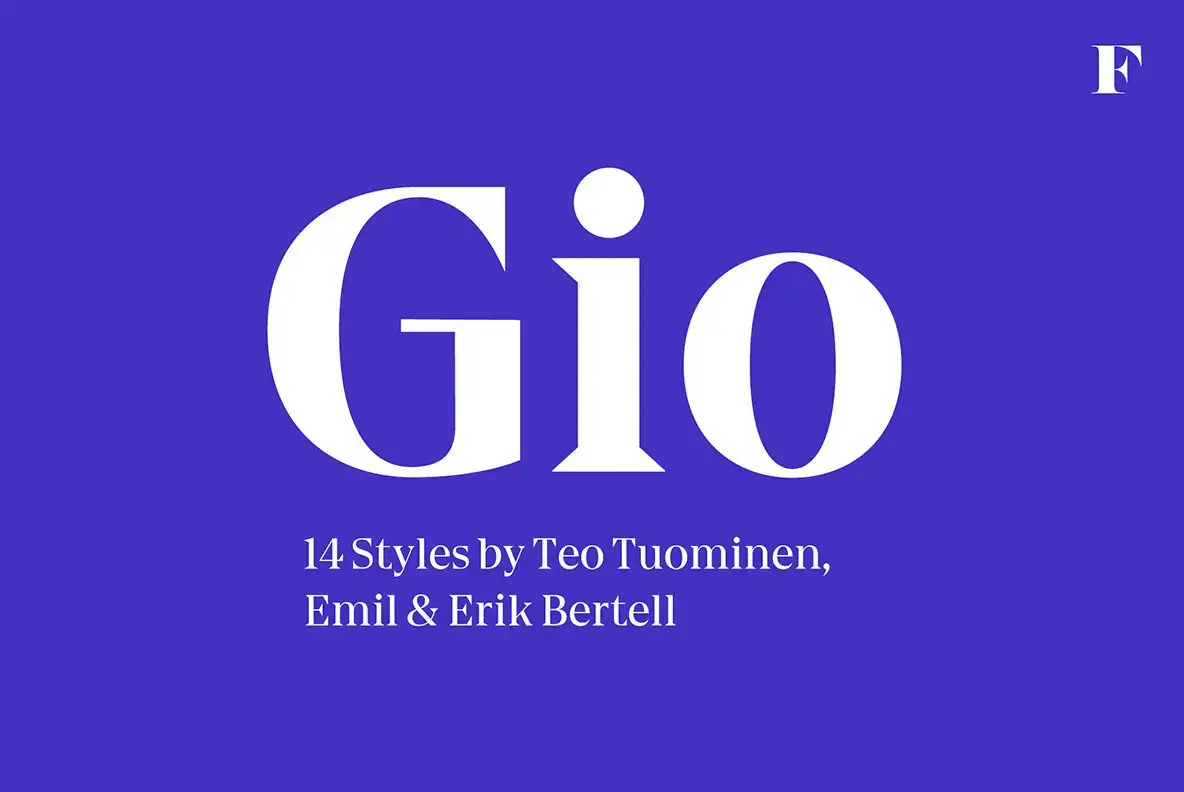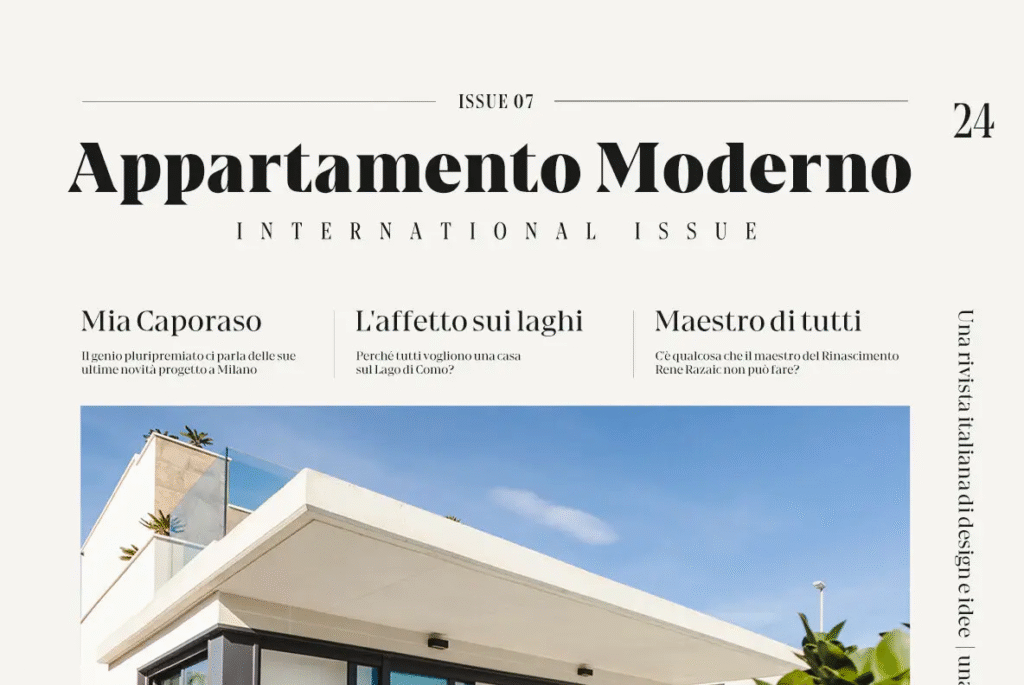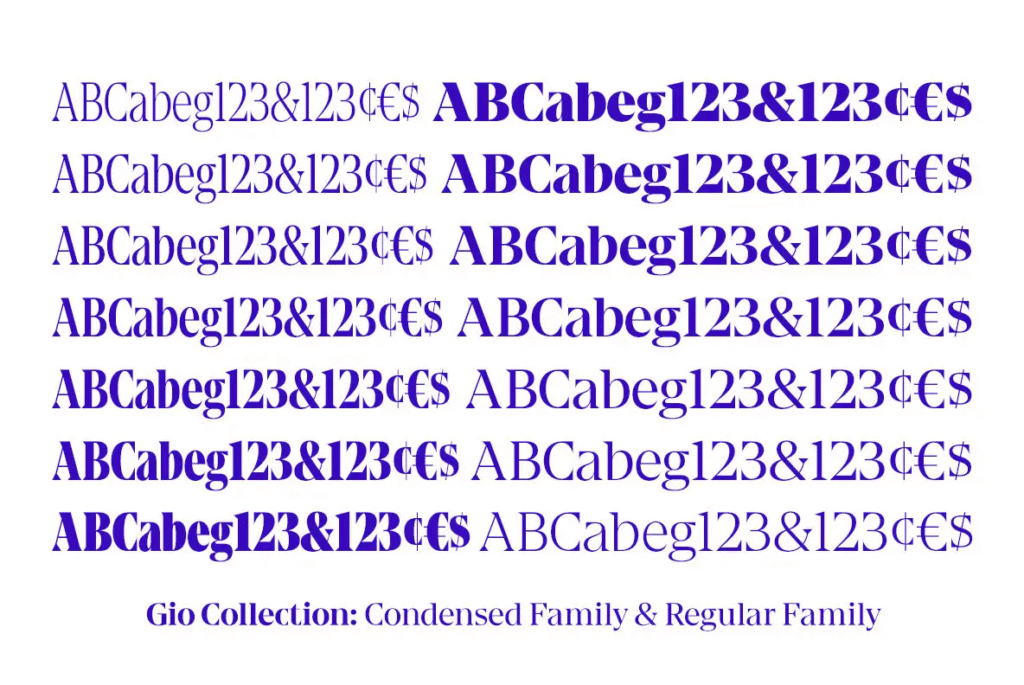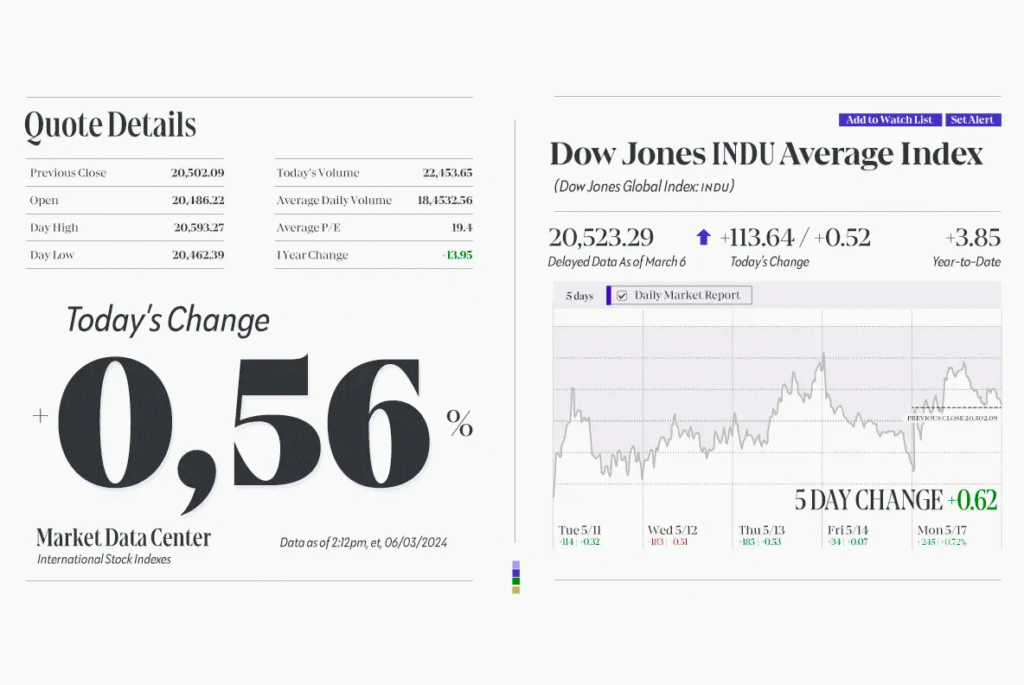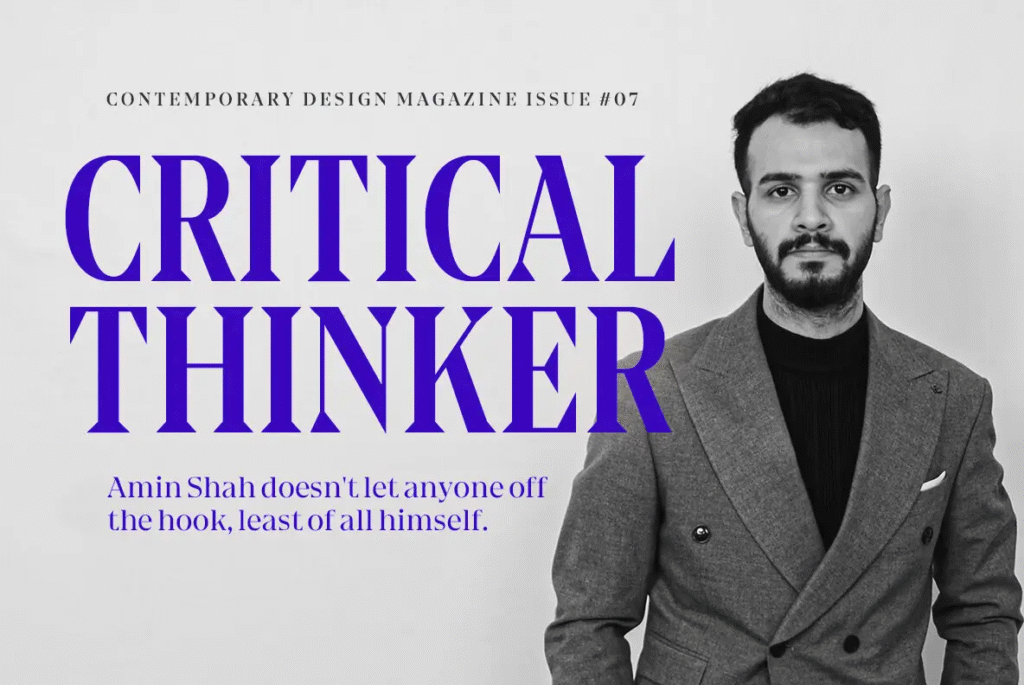
Gio Font
Gio wedge serif typeface with geometric design and modern elegance.
Gio serif font family sample with wedge serif details.
Modern editorial design using Gio typeface.
Branding mockup featuring Gio wedge serif font.
Elegant typography sample from Gio font family.
Headline design showcasing Gio serif typeface.
Logo concept created with Gio modern serif font.
Gio – Modern Wedge Serif Typeface
Designed by Fenotype, Gio is a wedge serif typeface with a strong geometric foundation and subtle refined details. Featuring two widths and seven styles each, Gio balances robust letterforms with elegance, making it versatile for modern design applications.
Its generous x-height and clean straight endings allow for excellent readability, while its consistent proportions provide a polished look across weights. Whether used in magazine layouts, logotypes, editorial design, or striking headlines, Gio delivers sophistication with a contemporary edge.
Key Features
• Wedge serif with geometric design
• 2 widths × 7 styles each for flexibility
• Generous x-height with consistent proportions
• Ideal for headlines, branding, editorial, and display use
Gio combines modern geometry with timeless serif elegance—perfect for designers seeking both functionality and style.
Gio is a geometric wedge serif available in multiple styles and widths, perfect for headlines, logotypes, and modern editorial layouts.